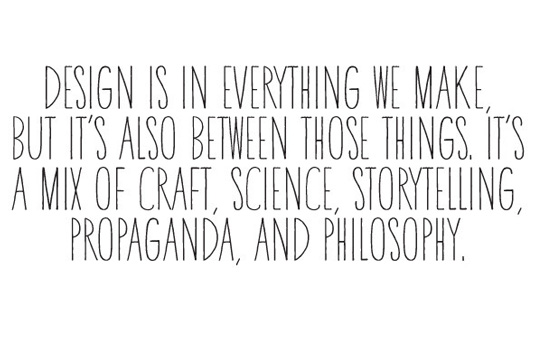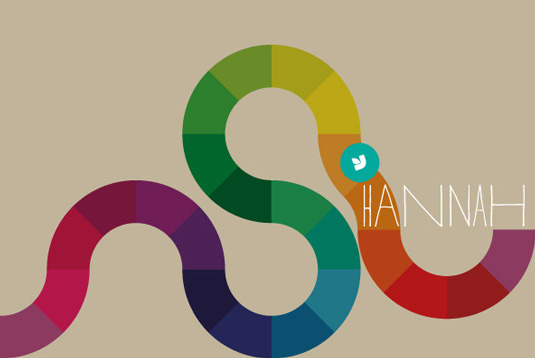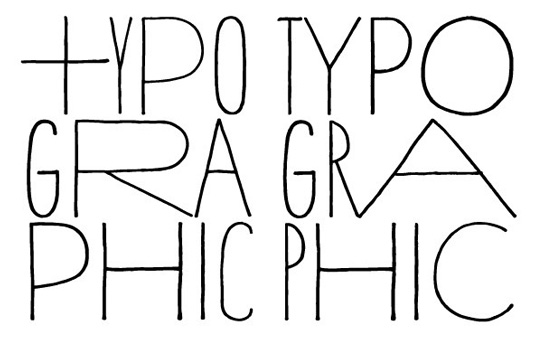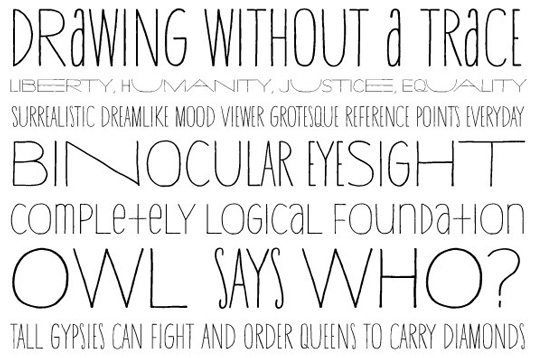
Font of the day: Hannah
Every day we showcase the best fonts on the web. Today it's Hannah by Travis Stearns.
Hannah by Travis Stearns
Travis Stearns is the graphic designer behind today's font of choice, Hannah. Stearns describes his design on YouWorkForThem: "Hannah is a type design comprised of three versions that work together as one, producing not variation and contrast between weights but between widths. The loose, hand drawn quality adds yet another layer of personality to the font."